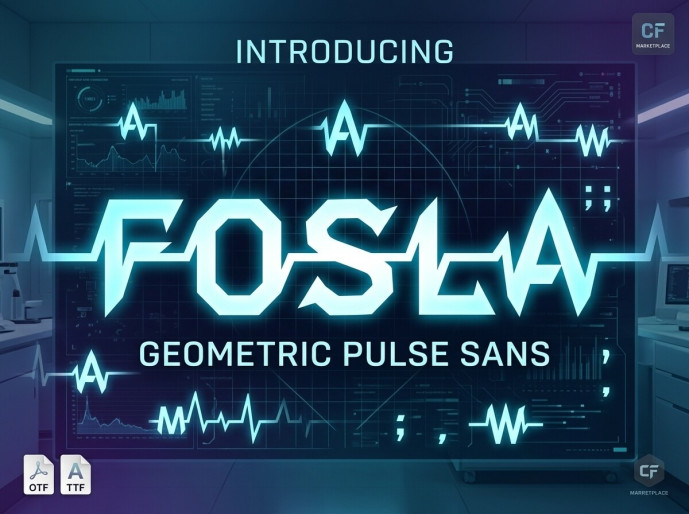
Electric, high-tech, and surging with life, Fosla is a cutting-edge geometric pulse sans-serif font! Fosla is the premier creative choice for futuristic video game HUDs, sci-fi movie titles, hospital or fitness tech branding, cyberpunk apparel graphics, and electronic music album covers.